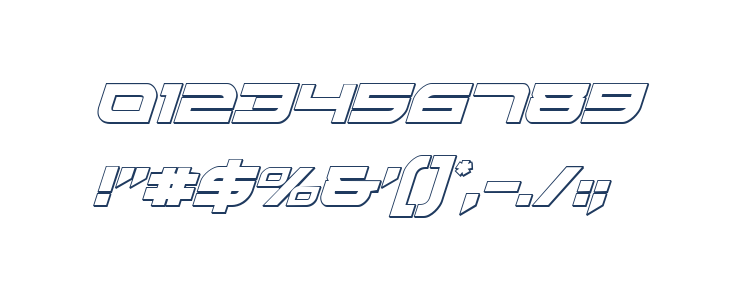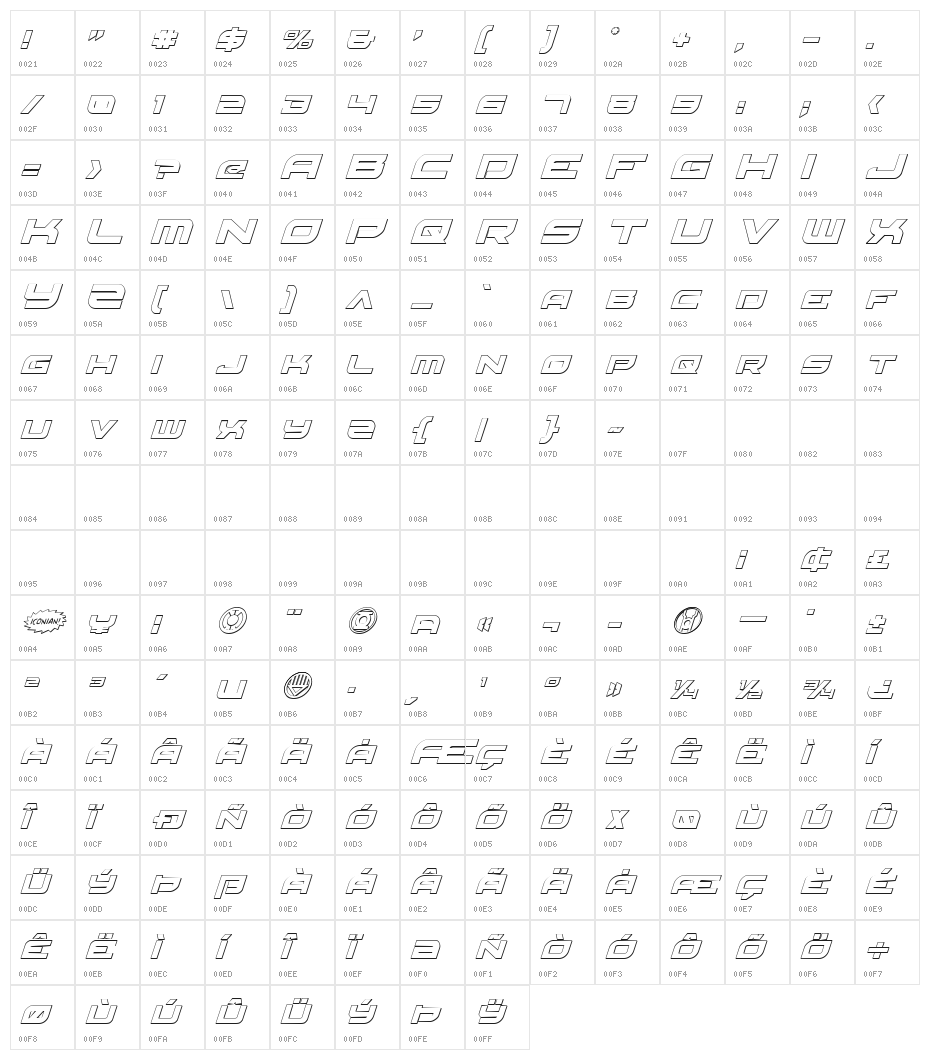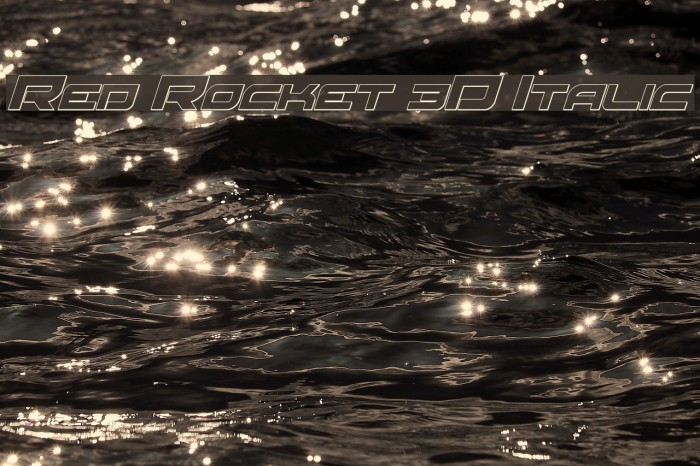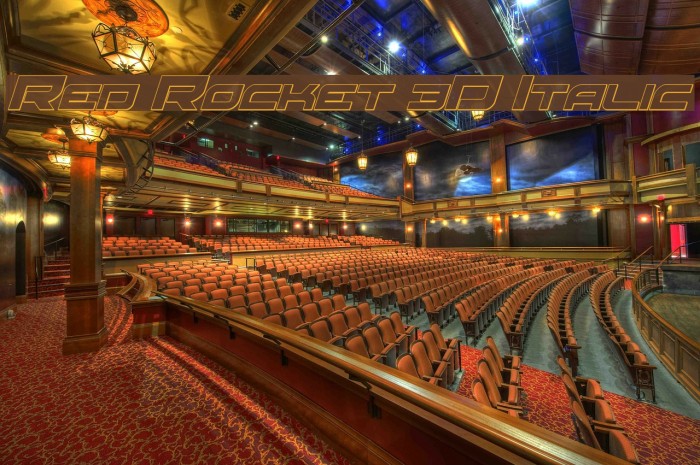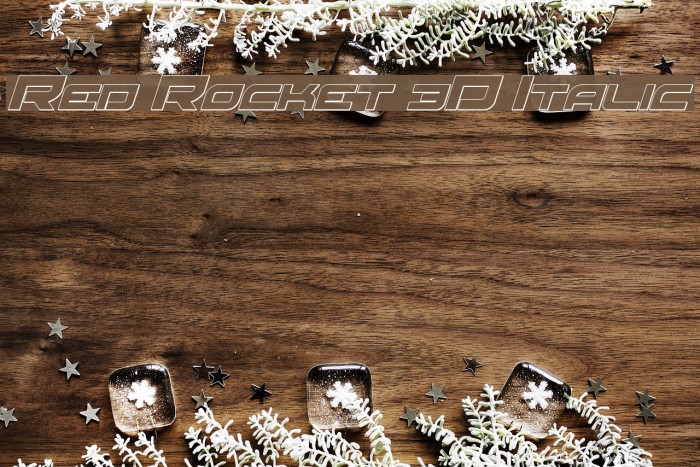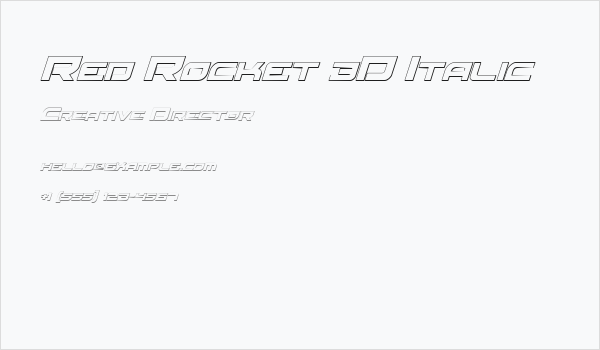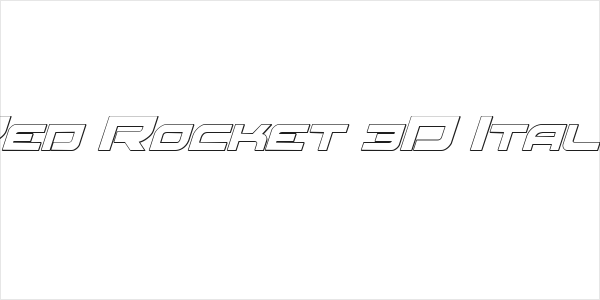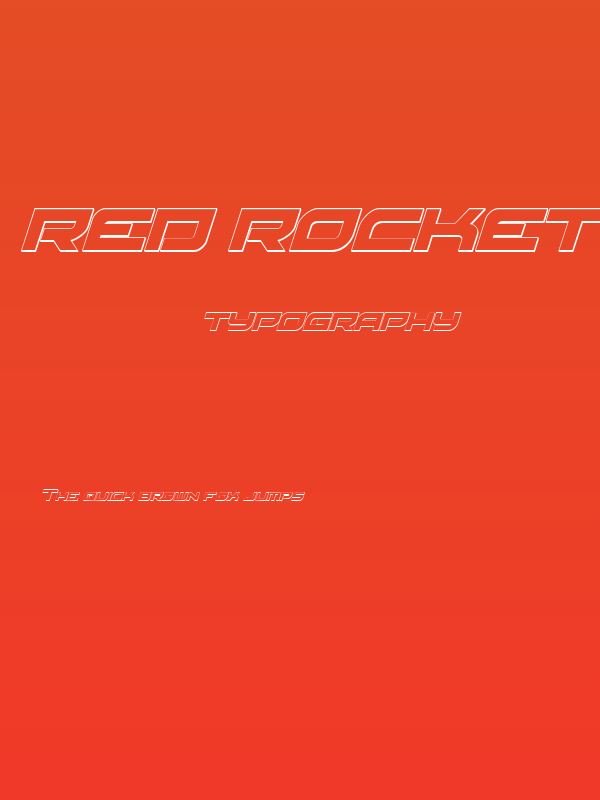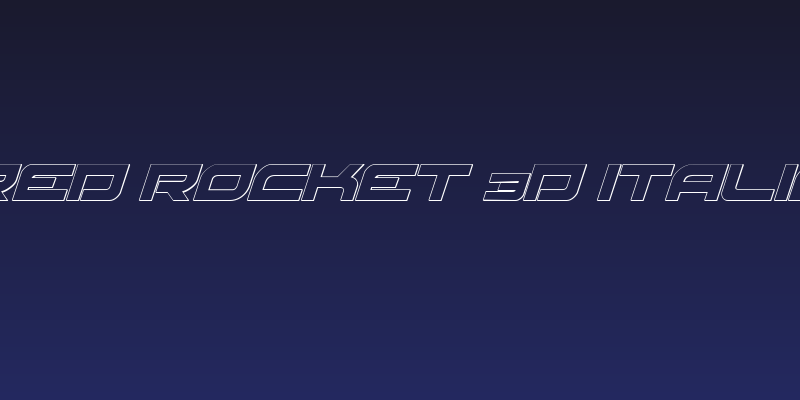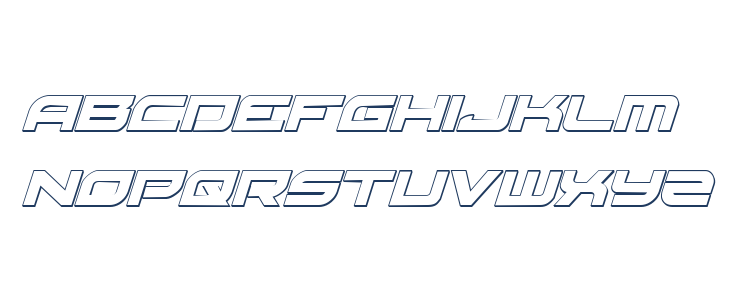
Red Rocket 3D Italic Font
Red Rocket 3D Italic Description
This font features a futuristic and dynamic design with a 3D effect, giving it a sense of depth and movement. The characters are italicized, adding to the sense of speed and modernity. The strokes are bold and consistent, with a geometric structure that emphasizes sharp angles and clean lines. The font's open counters and wide apertures enhance readability while maintaining its unique style. It is well-suited for projects that require a modern and energetic look, such as technology branding, sports team logos, or sci-fi themed designs.
| Proposed Projects | Ideal for technology branding, sports logos, sci-fi themes, and dynamic posters. |